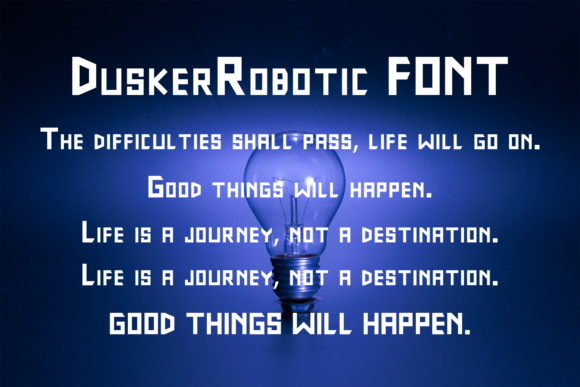
DuskerRobotic Font
**DuskerRobotic: The Font That Will Make Your Designs Shine**
Are you ready to take your designs to the next level? Look no further than DuskerRobotic, the font that oozes style and sophistication. With its sleek and modern lines, DuskerRobotic is perfect for adding a touch of elegance to any project.
Whether you're creating a stunning logo, an eye-catching poster, or a stylish t-shirt, DuskerRobotic will make your words stand out. Its versatility knows no bounds, making it the perfect choice for a wide range of design needs.
**Why Choose DuskerRobotic?**
- **Unleash Your Creativity:** DuskerRobotic is the perfect font for expressing your unique style. Its bold and confident strokes will add instant impact to your designs, making them unforgettable.
- **Make a Statement:** DuskerRobotic is not just a font; it's a statement. Its futuristic aesthetic will turn heads and leave a lasting impression on your audience.
- **Stand Out from the Crowd:** In a world filled with ordinary fonts, DuskerRobotic will help you stand out. Its unique and captivating design will set your work apart from the rest.
**Experience the DuskerRobotic Difference**
Don't settle for boring fonts that blend into the background. Embrace the power of DuskerRobotic and watch your designs transform before your eyes. It's the perfect font for those who dare to be different and make a lasting impact.